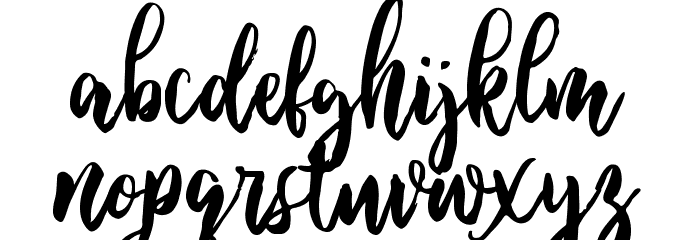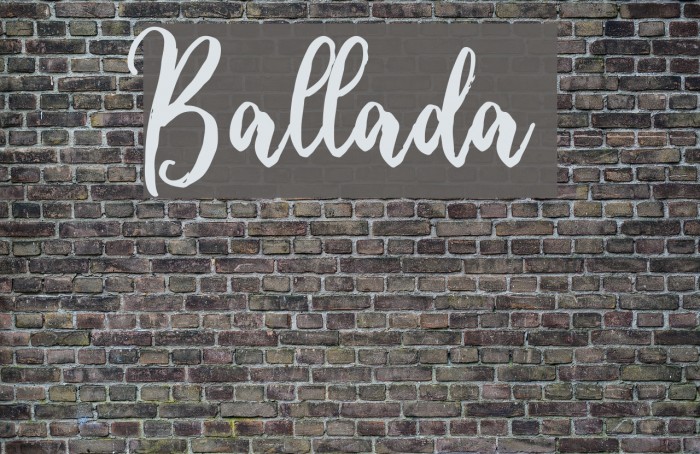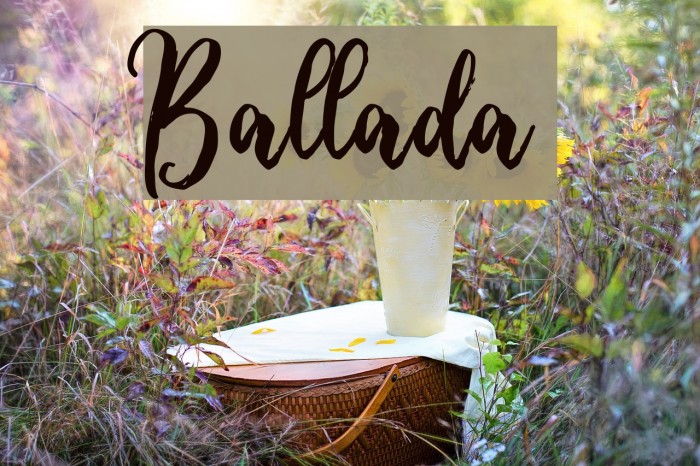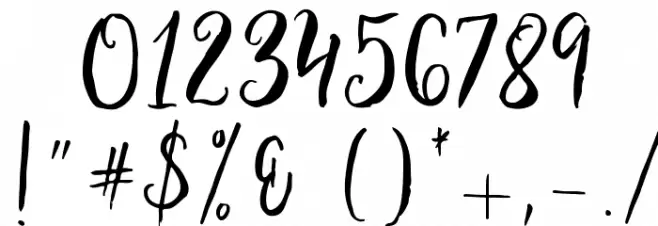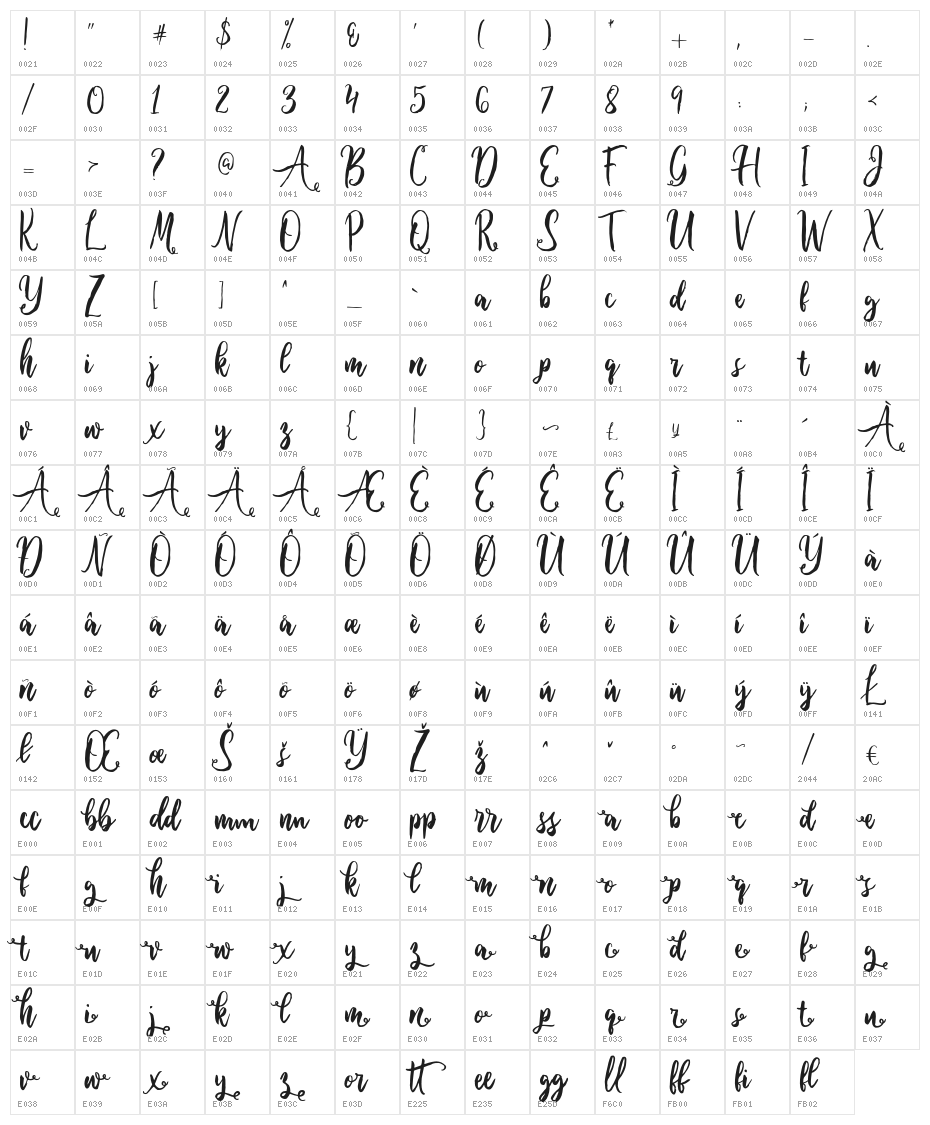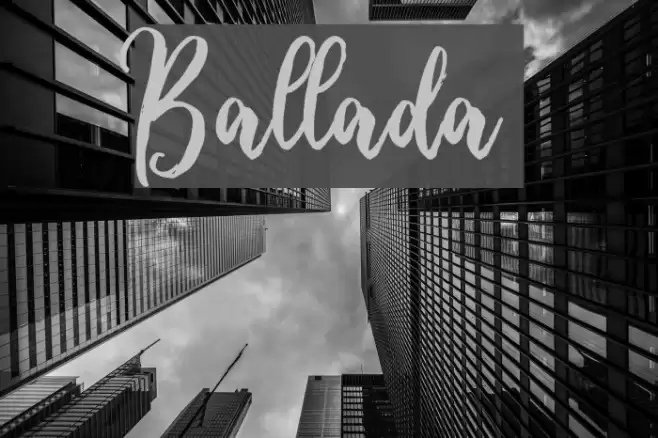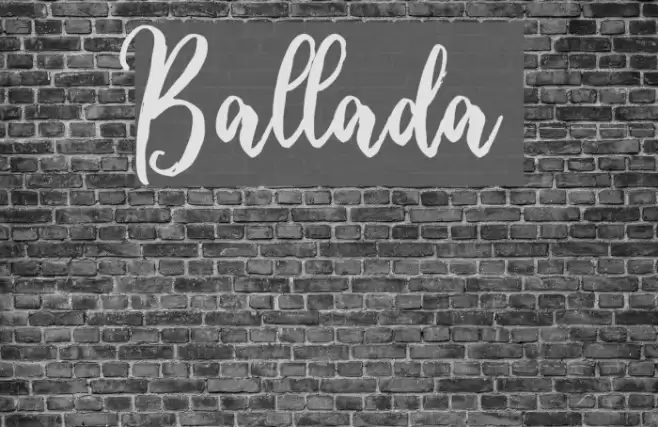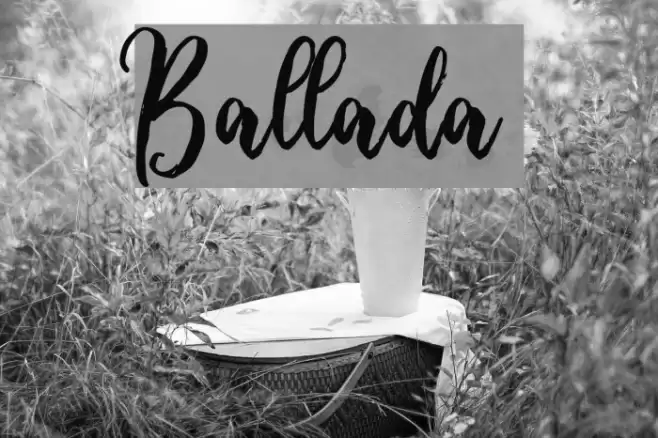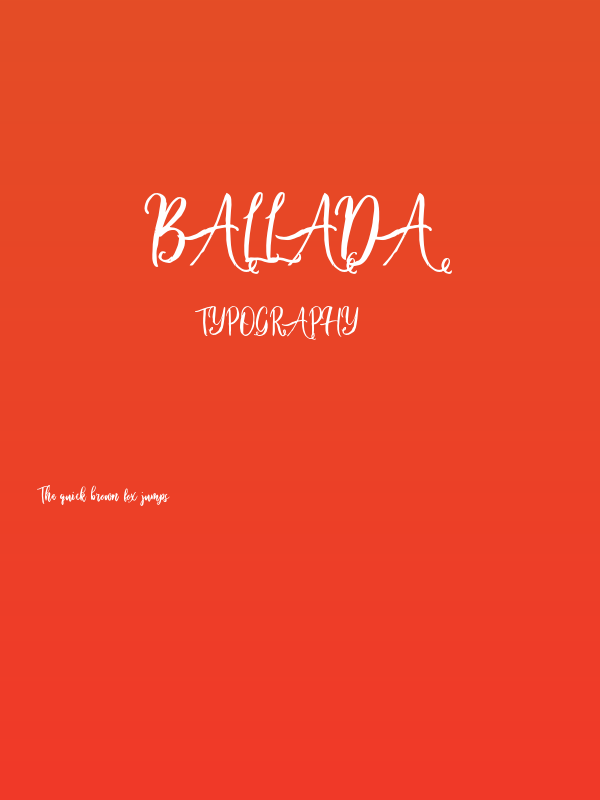
Ballada Font
This font exudes a lively and artistic flair, characterized by its flowing, cursive style that mimics the fluidity of hand-drawn calligraphy. The uppercase letters are bold and expressive, with elegant swirls and loops that add a touch of sophistication. The lowercase letters maintain a consistent rhythm, with smooth connections and a slightly playful demeanor. The numerals are distinct and maintain the same artistic style, ensuring readability while preserving the font's unique character. Special characters are creatively designed, adding to the font's overall charm. This font is perfect for projects that require a personal, artistic touch, such as invitations, greeting cards, or branding materials.
A lively, cursive font with a hand-drawn calligraphic style.
- Proposed Projects: Ideal for invitations, greeting cards, branding, and artistic projects.
- Category: Script
- Use Case: Logos, Headlines, Artistic projects